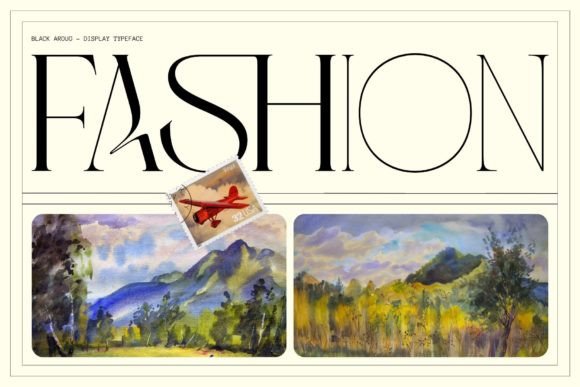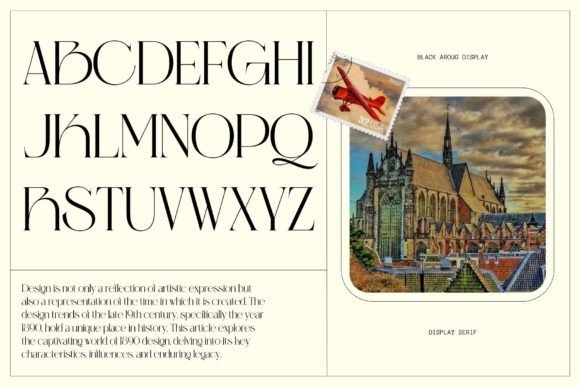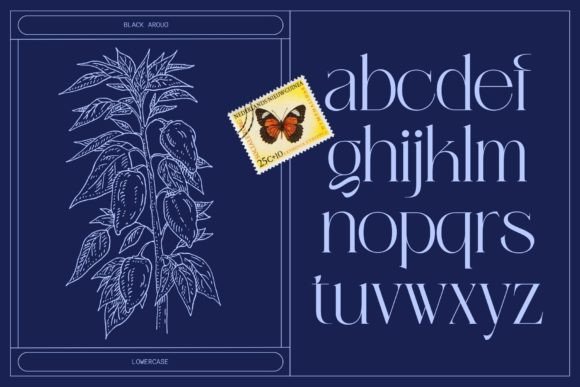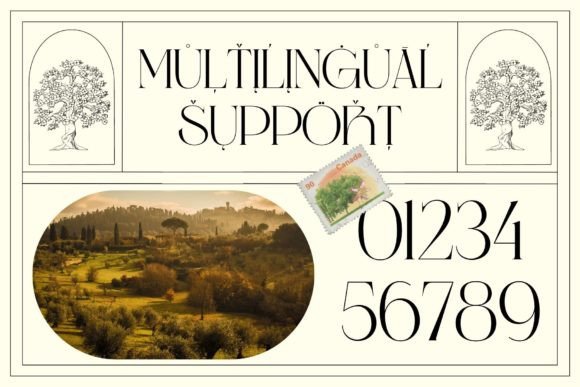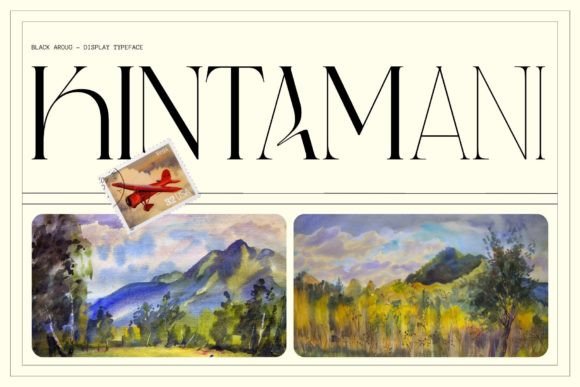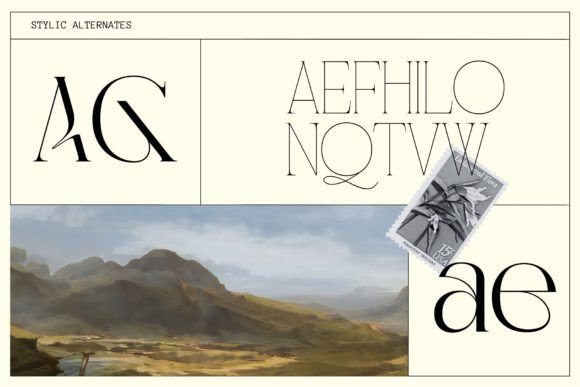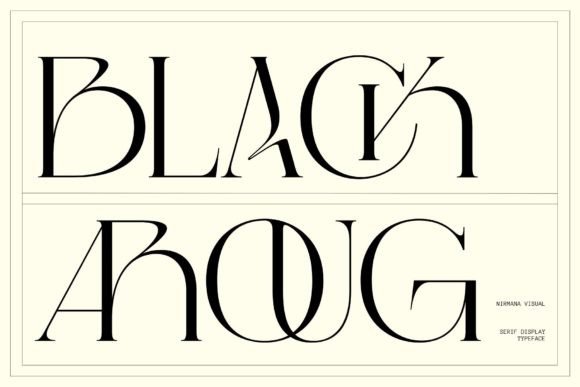
Discover the Elegance of Black Aroug Font: Inspired by the Renaissance Design Era
In the world of typography, fonts play a crucial role in conveying messages, expressing creativity, and evoking emotions. For designers and crafters, finding the perfect font can be a daunting task. However, if you’re looking for a font that embodies the elegance and sophistication of the Renaissance Design Era, look no further than the Black Aroug Font. In this article, we’ll explore the beauty and versatility of Black Aroug, and how it can elevate your design projects to new heights.
The Renaissance Design Era: A Timeless Inspiration
The Renaissance Design Era, which spanned from the 14th to the 17th century, was a cultural and artistic movement that saw a resurgence of interest in classical Greek and Roman styles. Characterized by its use of elegant lines, proportion, and harmony, Renaissance design continues to inspire artists, designers, and craftspeople to this day. The Black Aroug Font is a testament to this timeless era, capturing its essence and bringing it to life in a modern, versatile typeface.
Introducing Black Aroug Font: A Masterpiece of Typographic Harmony
Black Aroug Font is a stunning typeface that offers beautiful typographic harmony, making it perfect for a wide range of design projects. Whether you’re working on logos and branding, social media posts, advertisements, or product designs, Black Aroug is the ideal choice. Its elegant lines, precise curves, and balanced proportions create a sense of sophistication and refinement, adding a touch of luxury to any design.
Key Features of Black Aroug Font
- Classic Renaissance Inspiration: Black Aroug Font draws inspiration from the Renaissance Design Era, offering a unique blend of classic elegance and modern versatility.
- Beautiful Typographic Harmony: The font’s elegant lines, precise curves, and balanced proportions create a sense of harmony and sophistication, making it perfect for a wide range of design projects.
- High-Quality Design: Black Aroug Font is designed with precision and attention to detail, ensuring that it looks stunning in any design, from large headlines to small body text.
- Versatile and Adaptable: Whether you’re working on logos and branding, social media posts, advertisements, or product designs, Black Aroug Font is the perfect choice.
Design Applications for Black Aroug Font
Black Aroug Font is an incredibly versatile typeface that can be used in a wide range of design applications. Here are just a few examples:
- Social Media Posts: Elevate your social media presence with eye-catching graphics and typography that grab attention and convey your message.
- Advertisements: Create stunning ads that showcase your product or service in a compelling and sophisticated way.
- Product Designs: Add a touch of elegance and sophistication to your product designs, from packaging to promotional materials.
In conclusion, Black Aroug Font is a stunning typeface that offers beautiful typographic harmony and versatility, making it perfect for a wide range of design projects. Inspired by the Renaissance Design Era, Black Aroug captures the essence of this timeless era and brings it to life in a modern, elegant typeface. Whether you’re a designer, crafter, or simply someone who appreciates beautiful typography, Black Aroug Font is an excellent choice for any design project.